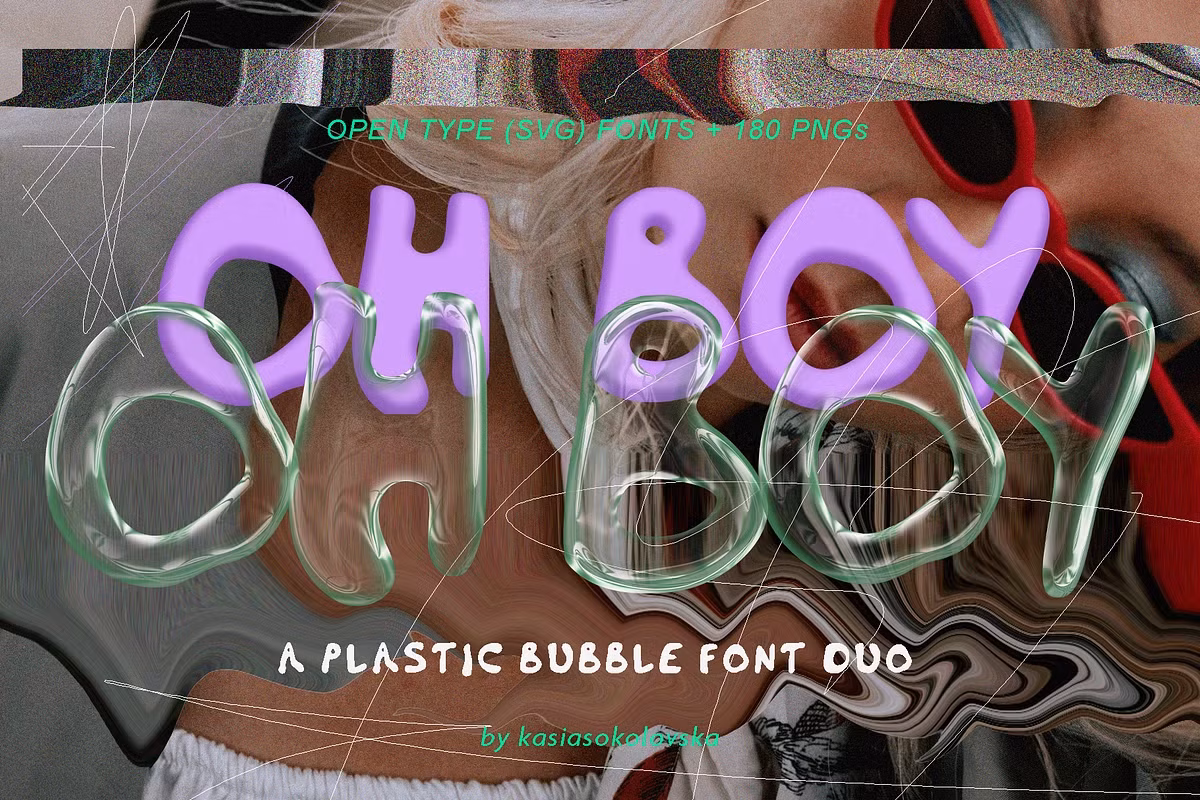
Plastic Bubble Font Duo 3D Free Download is a playful, retro-inspired font duo that combines bold bubble lettering with a vibrant 3D twist. Bursting with personality, this duo is perfect for kids’ designs, pop-art posters, toy packaging, fun branding, party invitations, and eye-catching social media graphics.
This font duo typically includes:
• A regular bubble style for bright, bold titles.
• A 3D version that adds dimension, depth, and a fun pop-art flair.
Its chunky, cartoonish style makes your typography impossible to miss, bringing a nostalgic yet modern aesthetic to your layouts.